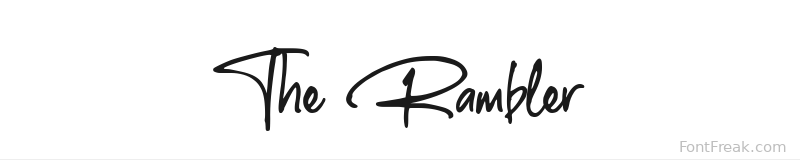
The Rambler
The Rambler font, designed by Kong Font, is a captivating script typeface that combines elegance with a contemporary flair. This font features a fluid, handwritten style that evokes a sense of warmth and friendliness. Its stroke weight is predominantly medium, creating a harmonious balance that is easy on the eyes while maintaining a distinct personality. The letters exhibit a moderate contrast, lending a graceful quality to the overall design. The spacing between characters is thoughtfully executed, ensuring readability without sacrificing artistic charm. Decorative elements, such as playful loops and swirls, add a touch of whimsy, making The Rambler an engaging choice for various creative projects.
This versatile font is well-suited for a range of applications, including wedding invitations where its romantic flair can enhance the overall aesthetic. It also shines in crafting eye-catching movie posters, as the script adds a dynamic element sure to attract attention. Restaurant menus can benefit from its inviting style, making dishes seem more appealing, while branding materials for small businesses can leverage its unique character to establish a memorable identity. Graphic designers and content creators will find The Rambler font free download an invaluable addition to their toolkit, allowing them to elevate their projects with ease.
What sets The Rambler apart is its ability to blend sophistication with approachability. This font not only captures the essence of handwritten typography but also adapts well to modern design trends. Whether you are working on a personal project or a professional endeavor, The Rambler offers a fresh perspective that is sure to leave a lasting impression. Its distinctive charm makes it an excellent choice for anyone looking to infuse creativity and personality into their designs.